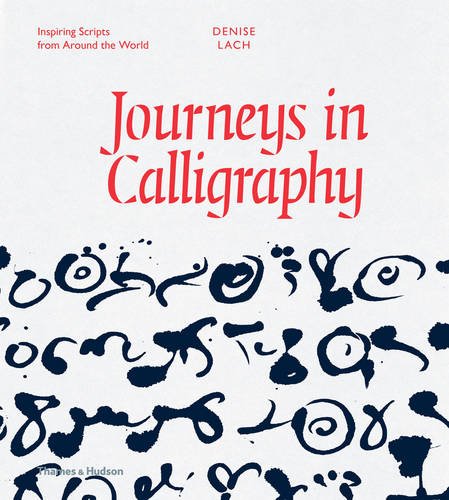
Journeys in Calligraphy: Inspiring Scripts from Around the World
Scripts from around the world can serve as striking and original sources of design inspiration
Not only do scripts and alphabets form bridges between cultures, but their history and the stories they tell are the perfect springboard for calligraphic experimentation.
From India to Ethiopia, Tibet and beyond, Denise Lach has travelled widely in the world of script. Here, she documents complex and simple characters, playful shapes and vibrant colours, which she then translates into her own visual art. She demonstrates the exciting design possibilities offered by script: you can repeat, turn, mirror and rotate letters; you can also experiment with rhythms, contrasts, colours and line widths.
In addition to calligraphic techniques, Lach introduces examples from printmaking, fabric printing, collage making and digital techniques.
Brimming with beautifully photographed works of art – on paper, stone, fabric or ceramic material – Journeys in Calligraphy will take you to many surprising destinations.
Early Writing
Ethiopia
Swahili
Kannada
Tibet
Burma
Runes
Malay
Other Journeys